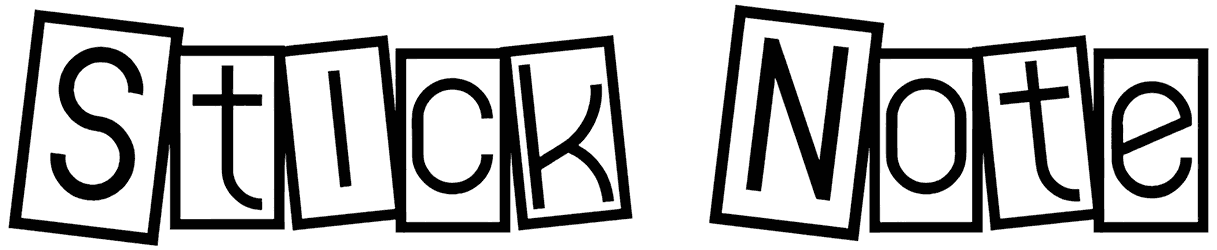
Stick Note Font
Now, take a beat and imagine your graphical design decked out with the handmade effect of this sticker font which screams playful just as you lay your eyes on it. So amazing, isn’t it?
Stick Note font lends itself to a long list of projects from child displays to comic or friendly design, and anything you see fit to utilize it for. The magnetic, doodle face derived from this boxed font turns it into a masterwork that you forget that there are no numbers.